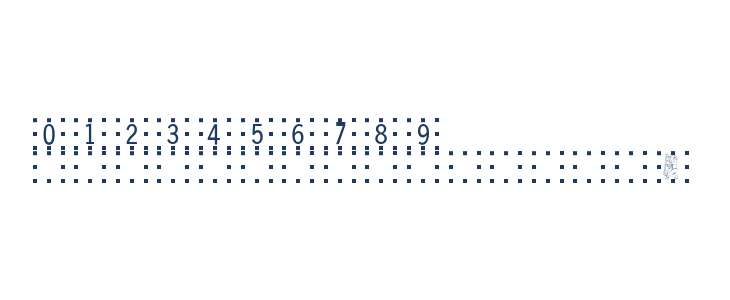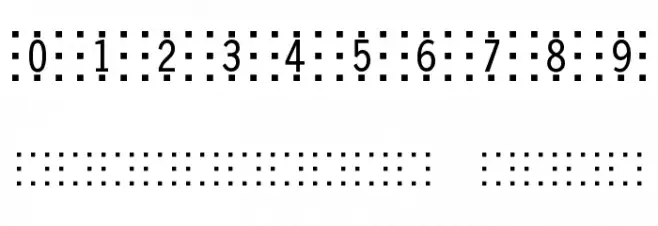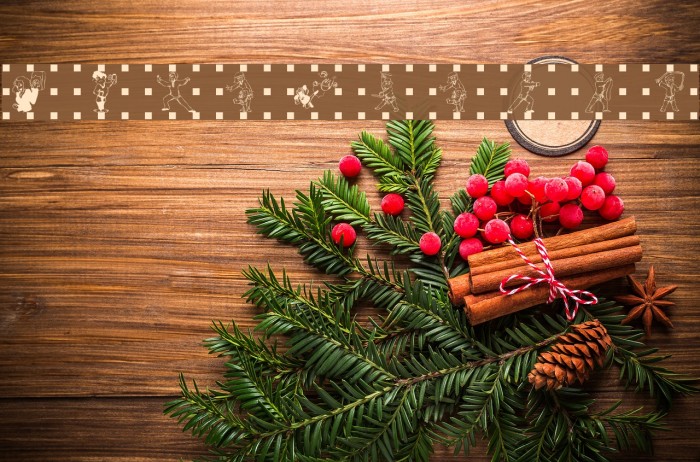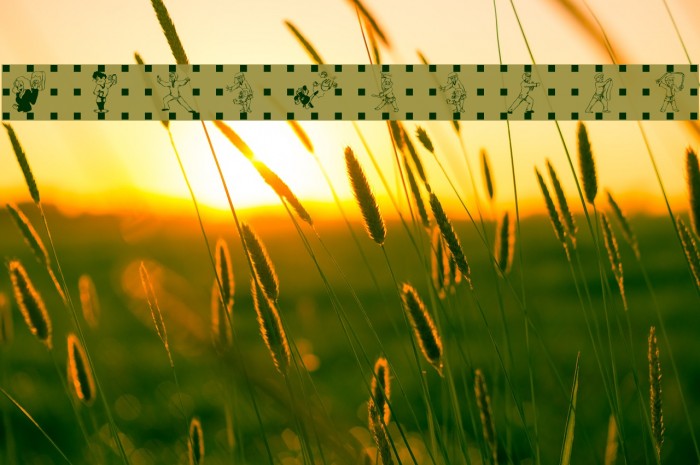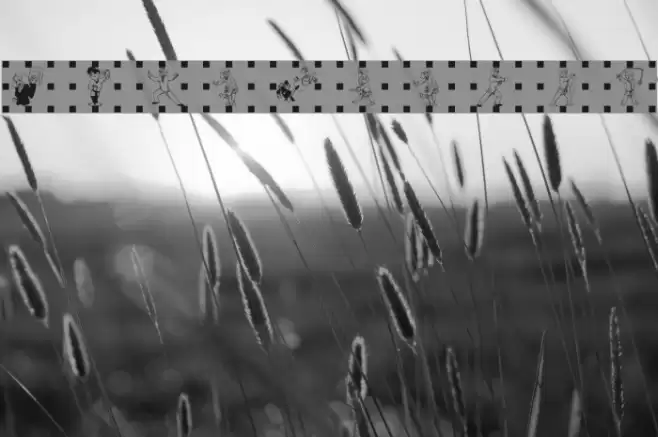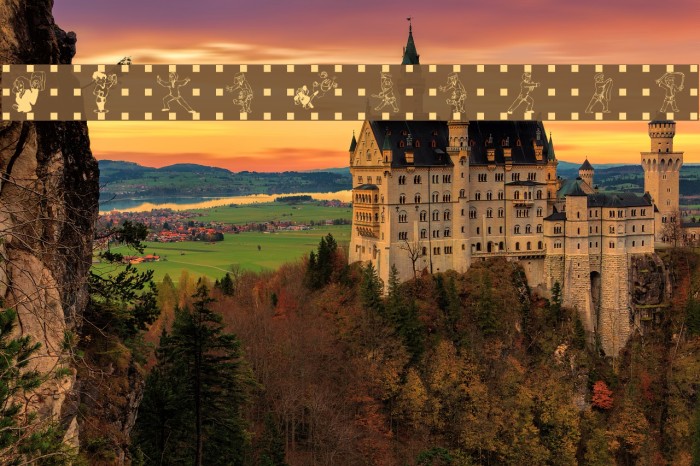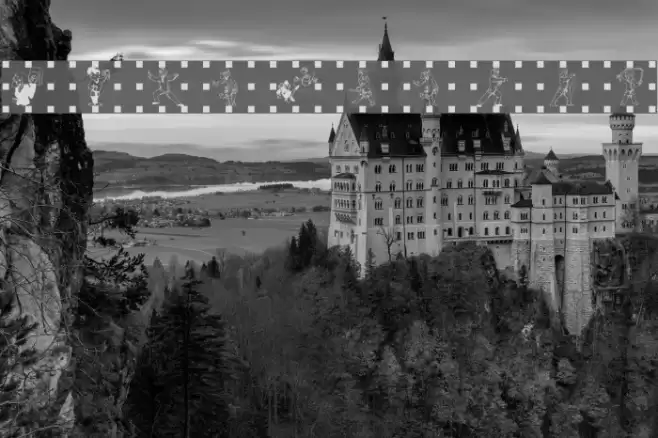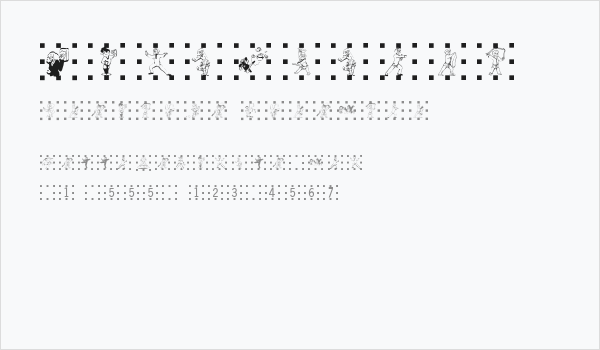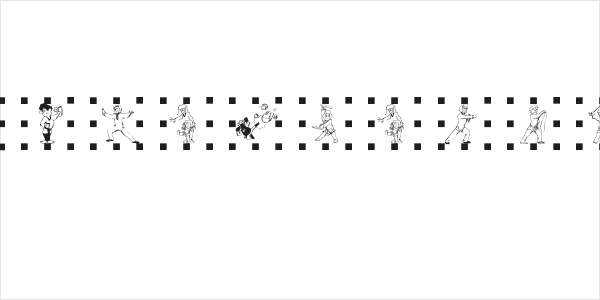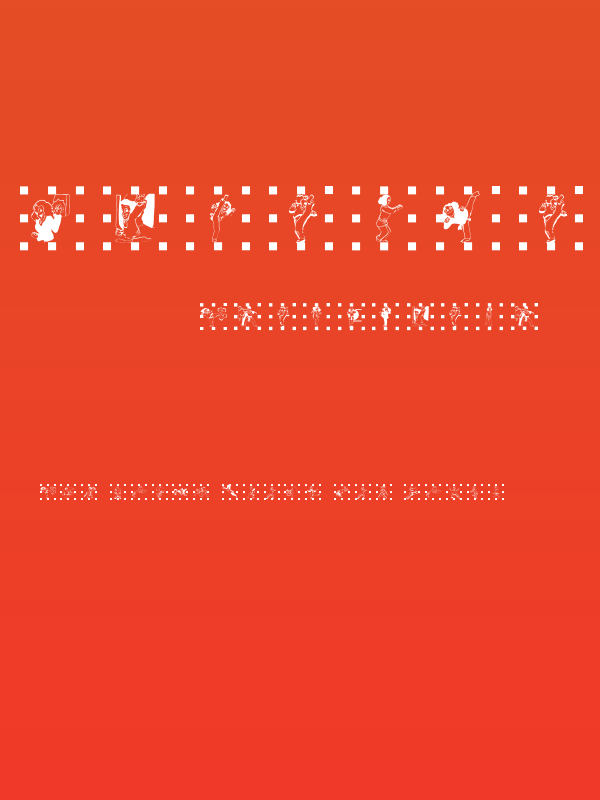
Kampfsport Font
This font features a unique and playful design where each character is represented by a martial arts figure in various poses. The characters are highly decorative, with intricate details capturing dynamic movements. The numbers are more traditional, providing a clear contrast to the illustrative letters. This font is ideal for creative projects that require a fun and energetic vibe, such as posters, event flyers, or themed merchandise. The overall style is distinctly decorative, emphasizing visual interest over readability.
| Use Case | Logos, Posters, Themed Merchandise |
| Proposed Projects | Ideal for martial arts event posters, themed merchandise, or playful graphic designs. |